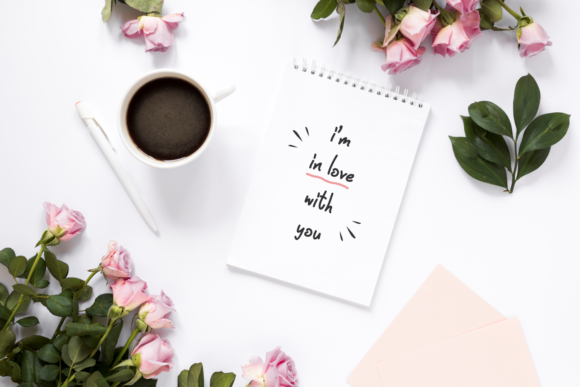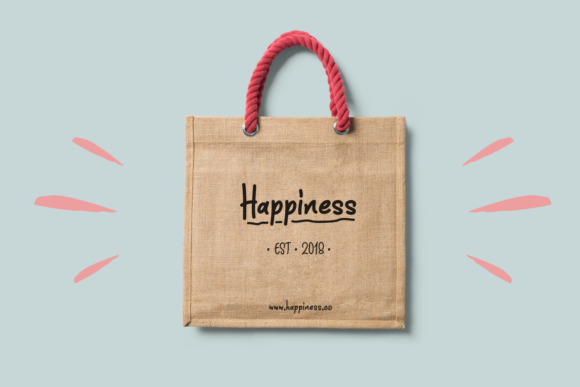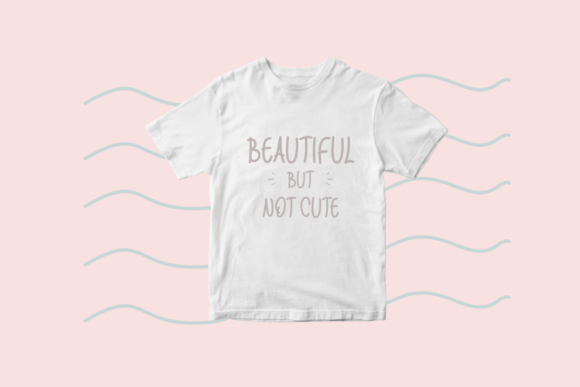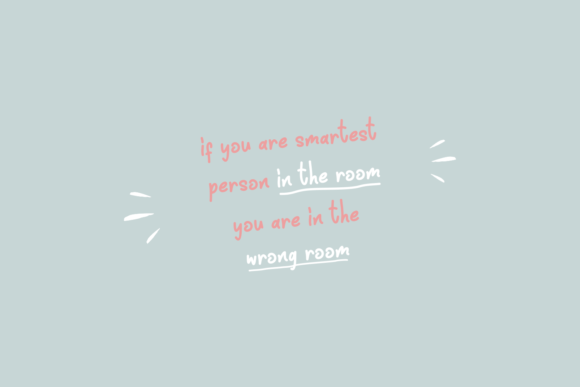
The Funnis Font: A Clean Script Font with a Friendly Feel
I’ll never forget the time I was working on a project for a children’s party invitation. I had the design concept nailed, but I just couldn’t find the right font to bring it all together. The invitation needed to be fun, yet elegant; bold, yet readable. That’s when I stumbled upon the Funnis font. It was love at first sight! 💕
The Funnis font is a clean script font that checks all the right boxes. Its bold letters have great readability and a striking, yet happy feel. It’s perfect for creating a design that needs to stand out, while maintaining a friendly feel. In this article, I’ll share my honest review of the Funnis font, provide a practical guide on how to use it, and explore similar fonts and alternatives.
My Honest Review
- ✨ Readability: The Funnis font is incredibly readable, even in smaller sizes. This makes it perfect for body text or captions.
- ✅ Friendliness: The font has a happy, approachable feel that’s perfect for designs that need to convey a sense of warmth and approachability.
- 💥 Versatility: The Funnis font is versatile and can be used for a wide range of design projects, from invitations to posters to social media graphics.
While the Funnis font is amazing, it’s not perfect. Here are a few things to keep in mind:
- 🤔 Limited Ligatures: The Funnis font has limited ligatures, which may be a drawback for some designers.
- ⚠️ Not Suitable for Long Blocks of Text: While the font is readable, it’s not ideal for long blocks of text. It’s best used for headings, titles, or short paragraphs.
The Funnis font was designed with the intention of creating a clean, friendly script font that’s perfect for a wide range of design projects. The designer wanted to create a font that’s both bold and approachable, making it ideal for designs that need to stand out while maintaining a warm feel.
| Font Name | Funnis Font |
| Author | Dani (7NTypes) |
Q: What is the Funnis font best used for?
A: The Funnis font is best used for designs that need a bold, yet friendly feel. It’s perfect for invitations, posters, social media graphics, and more.
Q: Is the Funnis font suitable for long blocks of text?
A: While the Funnis font is readable, it’s not ideal for long blocks of text. It’s best used for headings, titles, or short paragraphs.
Q: Is the Funnis font available in different weights or styles?
A: The Funnis font may be available in different weights or styles, depending on the font foundry. Be sure to check the font details to see what options are available.